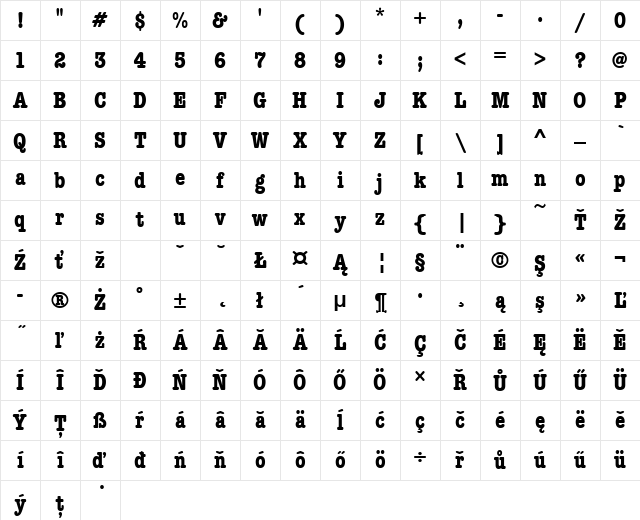
Complete AmericanTypItcTEEBolCon Regular glyph index. Displaying only characters natively supported by AmericanTypItcTEEBolCon Regular font.
AmericanTypItcTEEBolCon is a composed and adaptable typeface that performs quietly and consistently across a wide range of design contexts.